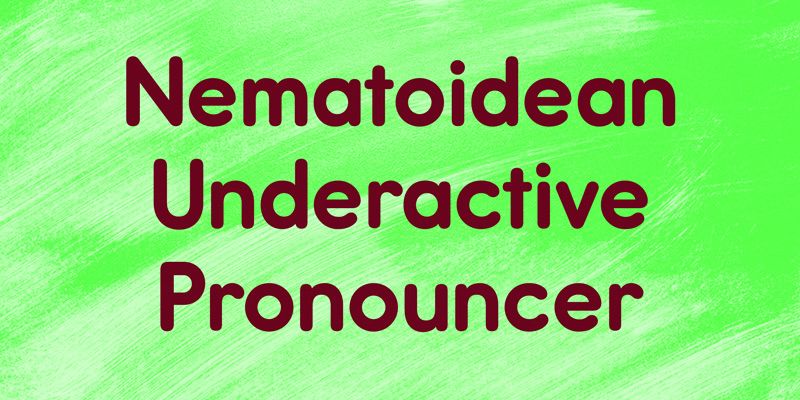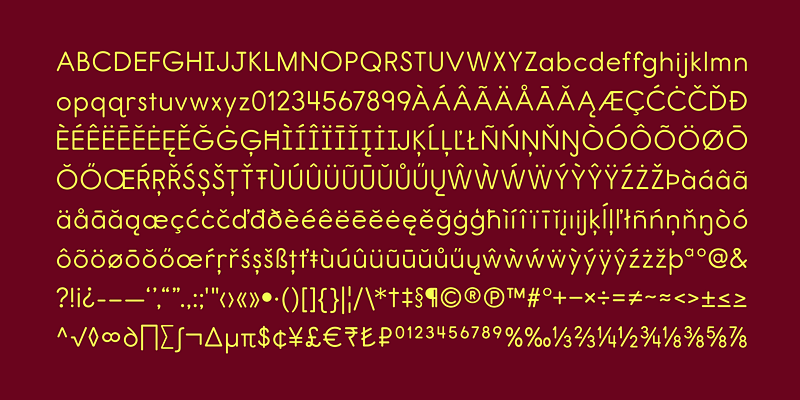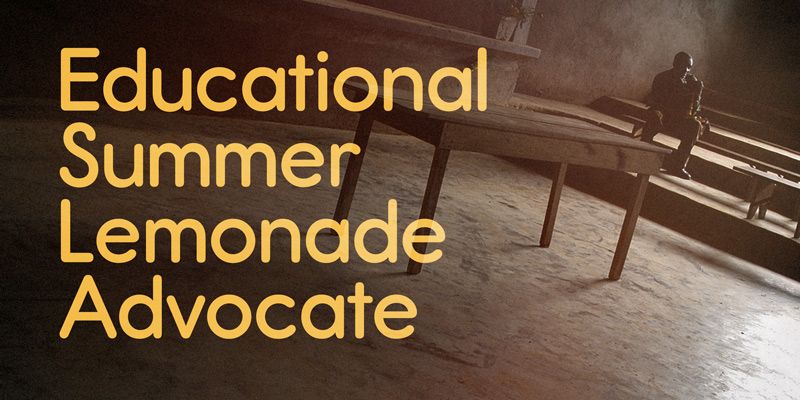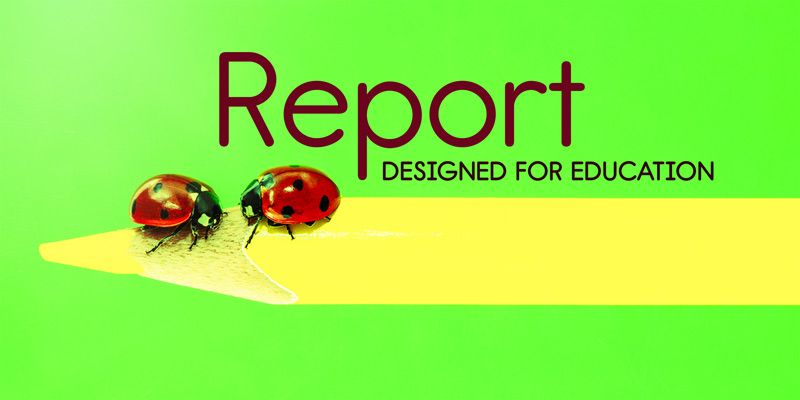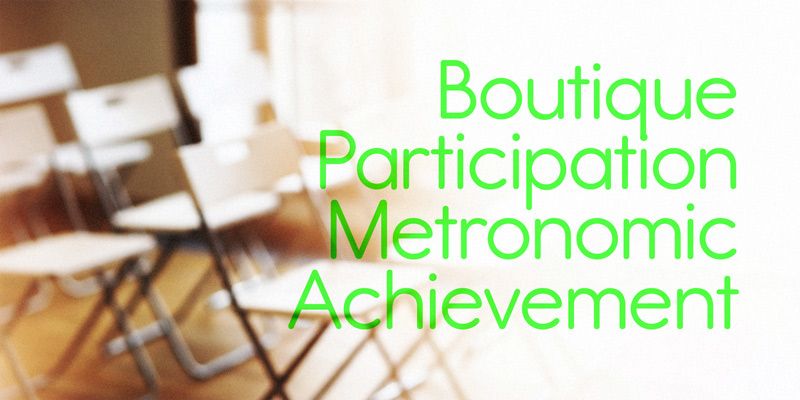
Report is a rounded geometric sans influenced by the letterforms of student handwriting worksheets. Its softened ends and approachable shapes keep instructions and headings clear without making them severe. Regular, SemiBold, and Bold offer a useful hierarchy for an activity sheet, classroom display, workbook, or family-facing museum guide. The type has enough structure to organize information, with just enough handwriting character to feel connected to the learner’s page. Use the stronger styles for directions and short titles, then give longer text comfortable size and spacing.